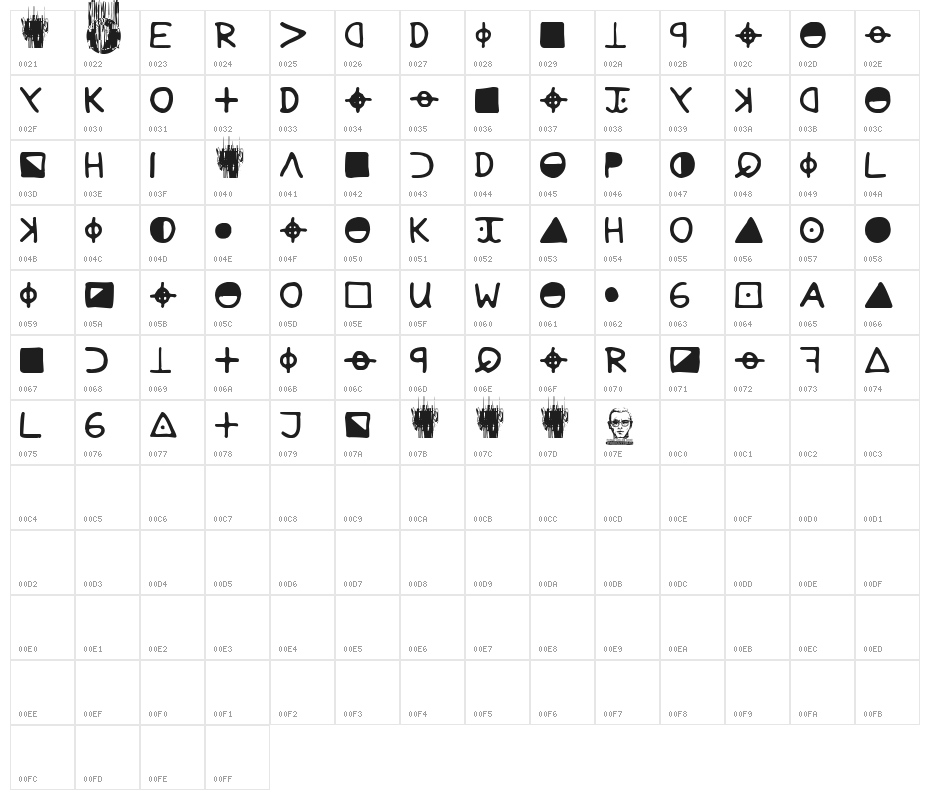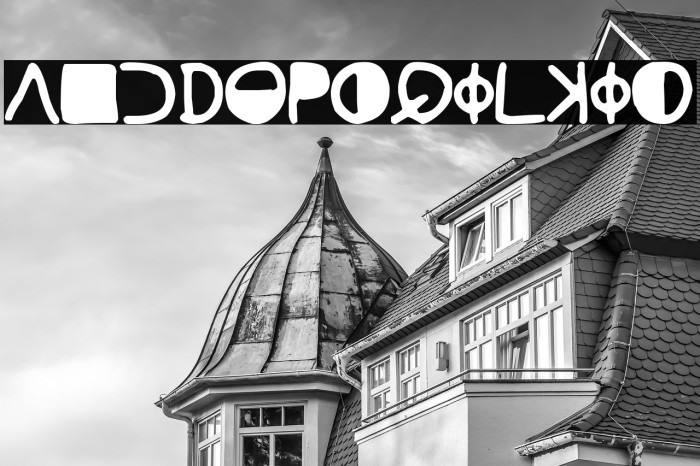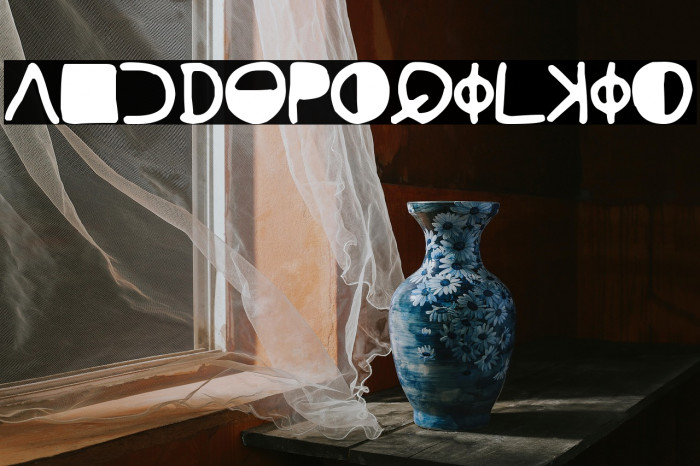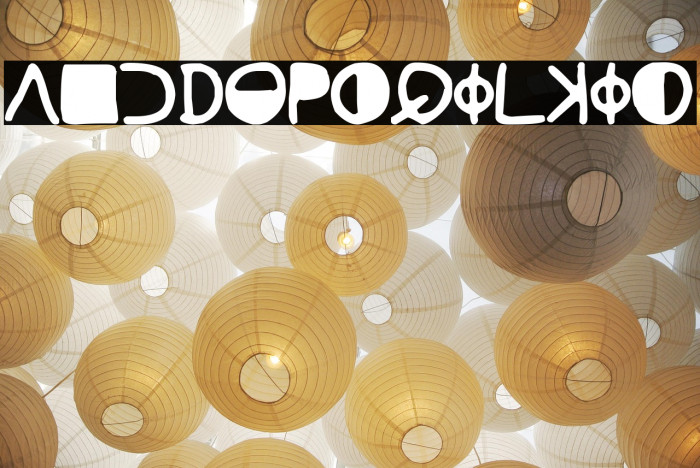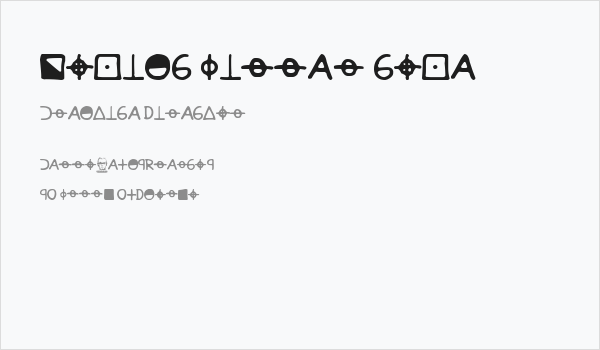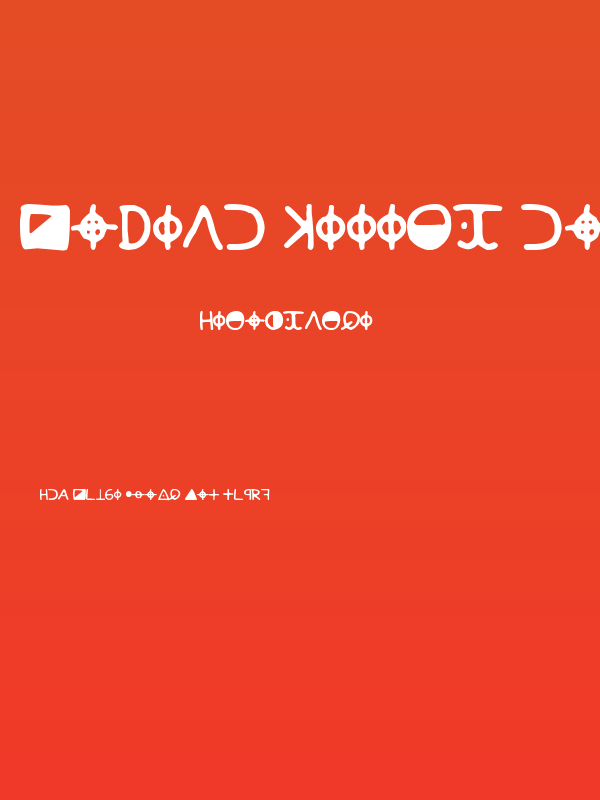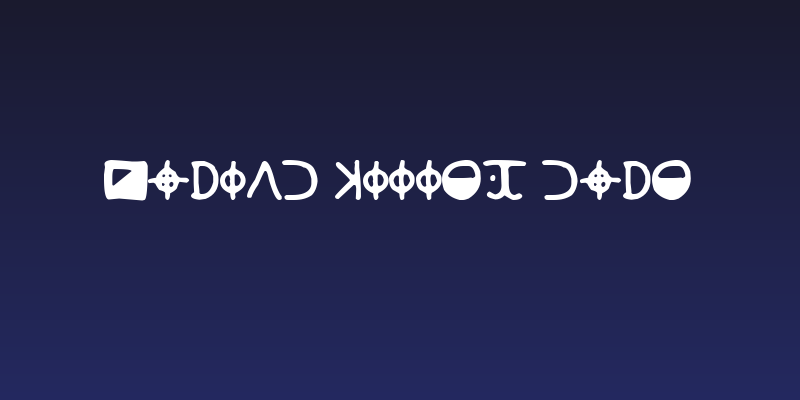
zodiac killer code Font
zodiac killer code Description
A cryptic, symbol-based typeface inspired by coded messages, featuring geometric shapes, circles, triangles, and abstract glyphs in place of standard alphanumeric characters. The symbols are bold, irregular, and have a hand-drawn, mysterious appearance.
| Overall Style | Decorative, Mysterious, Cryptic |
| Use Case | Logos, Headlines, Themed graphics, Puzzles |
| Proposed Projects | Puzzle games, escape room branding, mystery-themed posters, alternate reality games, movie titles, secret code invitations. |